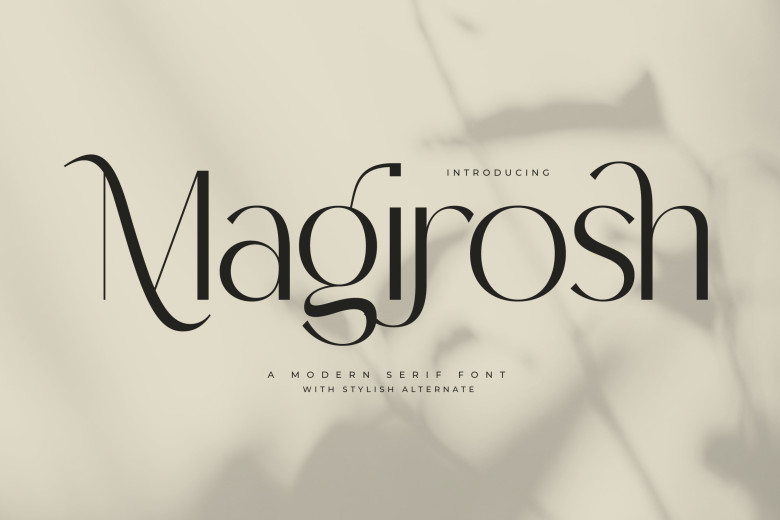
Magirosh Font
Magirosh is a modern and stylish serif font, features a completely unique style This typeface is ideally suited for elegant and luxurious logos, as well as for fashion brands, magazines, clothing, lettering, quotations, haiku etc.
Magirosh Serif Font